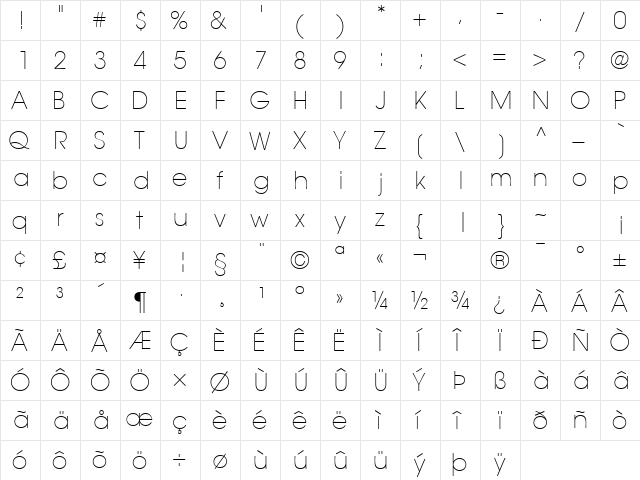
TrendexLightSSK Regular Font Preview
TrendexLightSSK Regular
Design Context for TrendexLightSSK Typeface
TrendexLightSSK offers clean, dependable letterforms without strong stylistic allegiance, making it a practical choice for designers who need flexibility. Its slender proportions lend an understated elegance to any composition.